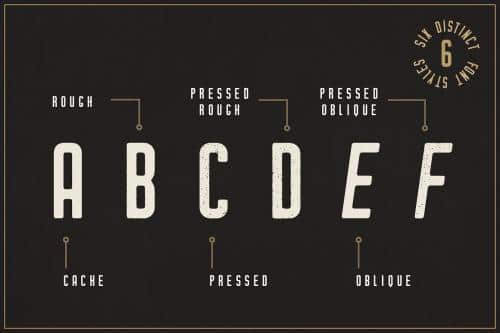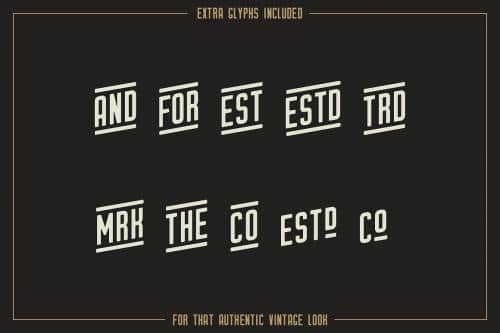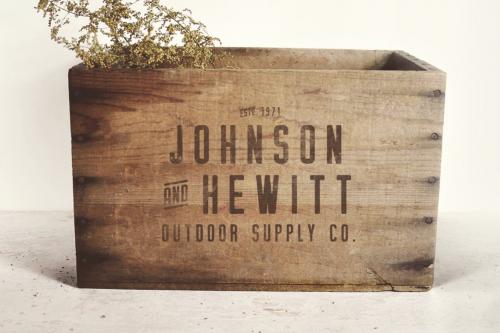
Cache Font designed by Quill Type Co, Cache comes in Regular, Rough and Pressed styles, with a slanted Oblique for each of these styles.
The texture on the Pressed versions was done by hand, ensuring that each character has its own distinct pattern to go along with its look and feel.
Cache is the perfect font family for all of your logos, posters, apparel, signage, etc. Its authentic vintage look and feel will give you that exact look you’ve been aiming for.